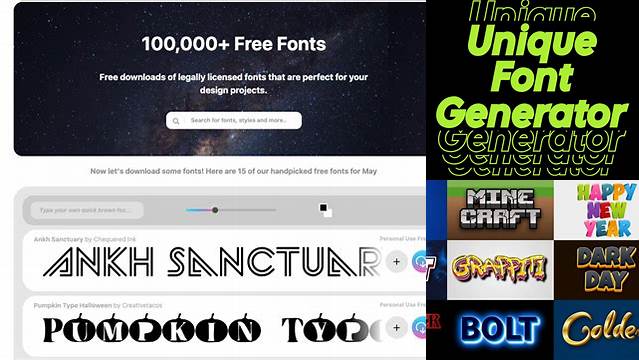
Free Fonts Online Generator: Create Unique Text!
Hey guys! Ever wanted to spice up your designs or social media posts with some cool, unique fonts? Well, you're in luck! A free fonts online generator is your go-to tool for turning ordinary text into extraordinary art. Let’s dive into how you can leverage these amazing resources to create eye-catching content.
1. Understanding Free Font Generators
So, what exactly is a free font generator? It’s essentially a web-based application that allows you to transform your regular text into a variety of stylized fonts without costing you a dime. These generators often come with a plethora of options, ranging from classic serif and sans-serif fonts to more decorative and whimsical styles. The beauty of using a free fonts online generator lies in its accessibility and ease of use. You don't need to download any software or have advanced design skills. Just type in your text, choose a font, and voila! You have beautifully styled text ready to be used in your projects. Many platforms also offer customization options, such as adjusting the size, color, and adding effects like shadows or outlines. This means you can tailor the font to perfectly match your aesthetic, whether you're working on a professional presentation, a social media campaign, or personal invitations. The versatility of a free fonts online generator makes it an indispensable tool for anyone looking to add a creative touch to their textual content. With regular updates and additions to their font libraries, these generators ensure that you always have access to the latest and greatest styles, keeping your designs fresh and engaging. Whether you’re a seasoned designer or a complete beginner, a free fonts online generator is a fantastic way to explore the world of typography and unleash your creative potential without breaking the bank.
2. How to Use a Free Font Generator
Using a free fonts online generator is super easy! First, find a generator you like – there are tons out there. Once you’re on the site, you’ll usually see a text box where you can type in whatever you want. After you've typed your text, the generator will display it in a variety of different fonts below. Scroll through and find one that catches your eye! Many generators also let you customize the font further by changing the size, color, or adding effects like shadows or outlines. Once you've got your text looking perfect, you can usually download it as an image or copy the text in a special format that you can paste into your project. Some generators even let you preview how the font will look on different backgrounds or in different contexts, which is super helpful. Remember to check the terms of use for each generator, especially if you're using the fonts for commercial purposes. While most free fonts online generator options are free for personal use, commercial use may require attribution or a license. So, always double-check to avoid any copyright issues. With a little bit of practice, you'll be creating stunning text designs in no time! The ease of use and accessibility of these tools make them perfect for anyone, regardless of their design experience. So go ahead, experiment, and have fun creating some amazing text art!
3. Best Free Font Generator Websites
Finding the best free font generator websites can feel like searching for a needle in a haystack, but don't worry, I've got you covered! Some popular options include LingoJam, Cool Text, and Font Meme. LingoJam is great for quick and quirky text transformations, while Cool Text offers a wide variety of customizable options. Font Meme is perfect for recreating fonts used in popular logos and designs. When choosing a free fonts online generator, consider factors like the variety of fonts offered, the ease of use, and the customization options available. Some websites also offer additional features like logo creation or image editing, which can be a bonus if you're looking for an all-in-one design solution. It's also worth checking out user reviews and ratings to get an idea of the website's reliability and the quality of its fonts. Remember to always read the terms of service before using any free fonts online generator, especially if you plan to use the generated fonts for commercial purposes. While most websites offer free fonts for personal use, commercial use may require a license or attribution. By doing your research and choosing a reputable website, you can ensure that you're getting high-quality fonts that you can use with confidence. So, go ahead and explore these different websites and find the one that best suits your needs and preferences. With so many great options available, you're sure to find the perfect free fonts online generator for your next project!
4. Free Stylish Font Generator
Looking for a free stylish font generator to add some flair to your projects? These generators offer a range of elegant and modern fonts that can elevate your designs. Whether you need a sophisticated serif for a formal invitation or a sleek sans-serif for a website header, a free fonts online generator can provide you with plenty of stylish options. When choosing a stylish font, consider the overall tone and aesthetic of your project. A script font can add a touch of elegance and romance, while a geometric font can convey a sense of modernity and professionalism. Experiment with different font combinations to find the perfect pairing for your design. Many free fonts online generator options also allow you to customize the font's size, color, and spacing, giving you even more control over the final look. Remember to choose a font that is easy to read and legible, especially for body text. While a decorative font may look beautiful, it's important to ensure that it doesn't compromise the readability of your content. By carefully selecting a stylish font and customizing it to your liking, you can create designs that are both visually appealing and effective. So, go ahead and explore the world of stylish fonts and discover the perfect one for your next project. With a free fonts online generator, the possibilities are endless!
5. Free Fancy Font Generator
If you want to add a touch of whimsy and creativity to your designs, a free fancy font generator is the way to go! These generators offer a variety of unique and playful fonts that can make your text stand out. From bubble letters to graffiti fonts, a free fonts online generator can help you create designs that are both fun and eye-catching. When choosing a fancy font, consider the target audience and the overall message of your project. A playful font may be perfect for a children's book or a birthday invitation, while a more edgy font may be suitable for a band poster or a streetwear brand. Experiment with different font combinations to create a unique and memorable design. Many free fonts online generator options also allow you to customize the font's color, size, and effects, giving you even more control over the final look. Remember to use fancy fonts sparingly, as they can be difficult to read if overused. It's best to reserve them for headings and titles, and use a more legible font for body text. By carefully selecting and using fancy fonts, you can create designs that are both visually appealing and effective. So, go ahead and explore the world of fancy fonts and discover the perfect one for your next project. With a free fonts online generator, the possibilities are endless!
6. Free Cool Font Generator
Need to inject some free cool font generator styles into your text? These generators provide a wide array of trendy and modern fonts that can make your designs pop. Whether you're working on a social media post, a website banner, or a presentation, a free fonts online generator can help you find the perfect cool font to match your style. When choosing a cool font, consider the overall vibe you're trying to achieve. A bold and futuristic font can convey a sense of innovation and technology, while a retro font can evoke a sense of nostalgia and fun. Experiment with different font combinations to create a unique and eye-catching design. Many free fonts online generator options also allow you to customize the font's color, size, and spacing, giving you even more control over the final look. Remember to choose a font that is legible and easy to read, especially for body text. While a cool font may look great, it's important to ensure that it doesn't compromise the readability of your content. By carefully selecting and using cool fonts, you can create designs that are both visually appealing and effective. So, go ahead and explore the world of cool fonts and discover the perfect one for your next project. With a free fonts online generator, the possibilities are endless!
7. Free Unique Font Generator
For designs that need to stand out, a free unique font generator is your best friend. These generators offer a collection of fonts that are unlike anything you've seen before. Whether you're looking for a quirky handwritten font or a futuristic geometric font, a free fonts online generator can help you find a truly unique typeface. When choosing a unique font, consider the overall message and tone of your design. A handwritten font can add a personal and intimate touch, while a geometric font can convey a sense of modernity and innovation. Experiment with different font combinations to create a memorable and distinctive design. Many free fonts online generator options also allow you to customize the font's color, size, and effects, giving you even more control over the final look. Remember to use unique fonts sparingly, as they can be difficult to read if overused. It's best to reserve them for headings and titles, and use a more legible font for body text. By carefully selecting and using unique fonts, you can create designs that are both visually appealing and effective. So, go ahead and explore the world of unique fonts and discover the perfect one for your next project. With a free fonts online generator, the possibilities are endless!
8. Free Text Font Generator
A free text font generator is a versatile tool for creating a wide variety of text styles. These generators allow you to transform your ordinary text into eye-catching designs with just a few clicks. Whether you're working on a website, a social media post, or a presentation, a free fonts online generator can help you find the perfect font to match your needs. When choosing a font, consider the overall message and tone of your design. A professional font may be suitable for a business presentation, while a playful font may be perfect for a children's book. Experiment with different font combinations to create a visually appealing and effective design. Many free fonts online generator options also allow you to customize the font's color, size, and effects, giving you even more control over the final look. Remember to choose a font that is legible and easy to read, especially for body text. While a decorative font may look beautiful, it's important to ensure that it doesn't compromise the readability of your content. By carefully selecting and using text fonts, you can create designs that are both visually appealing and effective. So, go ahead and explore the world of text fonts and discover the perfect one for your next project. With a free fonts online generator, the possibilities are endless!
9. Free Online Font Generator for Instagram
Level up your Instagram game with a free online font generator for Instagram! These generators offer a variety of fonts that are perfect for creating eye-catching captions, stories, and bios. Whether you're a business owner, an influencer, or just someone who wants to add a little flair to their profile, a free fonts online generator can help you stand out from the crowd. When choosing a font for Instagram, consider the overall aesthetic of your profile and the message you want to convey. A stylish font can add a touch of sophistication, while a playful font can inject some fun and personality. Experiment with different font combinations to create a unique and memorable brand. Many free fonts online generator options also allow you to preview how the font will look on your profile before you commit to using it. Remember to choose a font that is legible and easy to read, especially for longer captions. While a decorative font may look great, it's important to ensure that it doesn't compromise the readability of your content. By carefully selecting and using fonts for Instagram, you can create a profile that is both visually appealing and effective. So, go ahead and explore the world of Instagram fonts and discover the perfect one for your next post. With a free fonts online generator, the possibilities are endless!
30. Changing Fonts Online
The ability of changing fonts online is seamless. With a free fonts online generator, changing fonts online has never been easier. These web-based tools allow you to experiment with different typefaces without downloading or installing any software. You can simply type your text into the generator, browse through the available fonts, and preview how your text will look in each style. Many generators also offer customization options, such as adjusting the size, color, and spacing of the text, giving you full control over the final look. Whether you're working on a personal project, a school assignment, or a professional design, a free fonts online generator can help you find the perfect font to convey your message effectively. The convenience and accessibility of these tools make them ideal for anyone who wants to explore the world of typography and create visually appealing content.